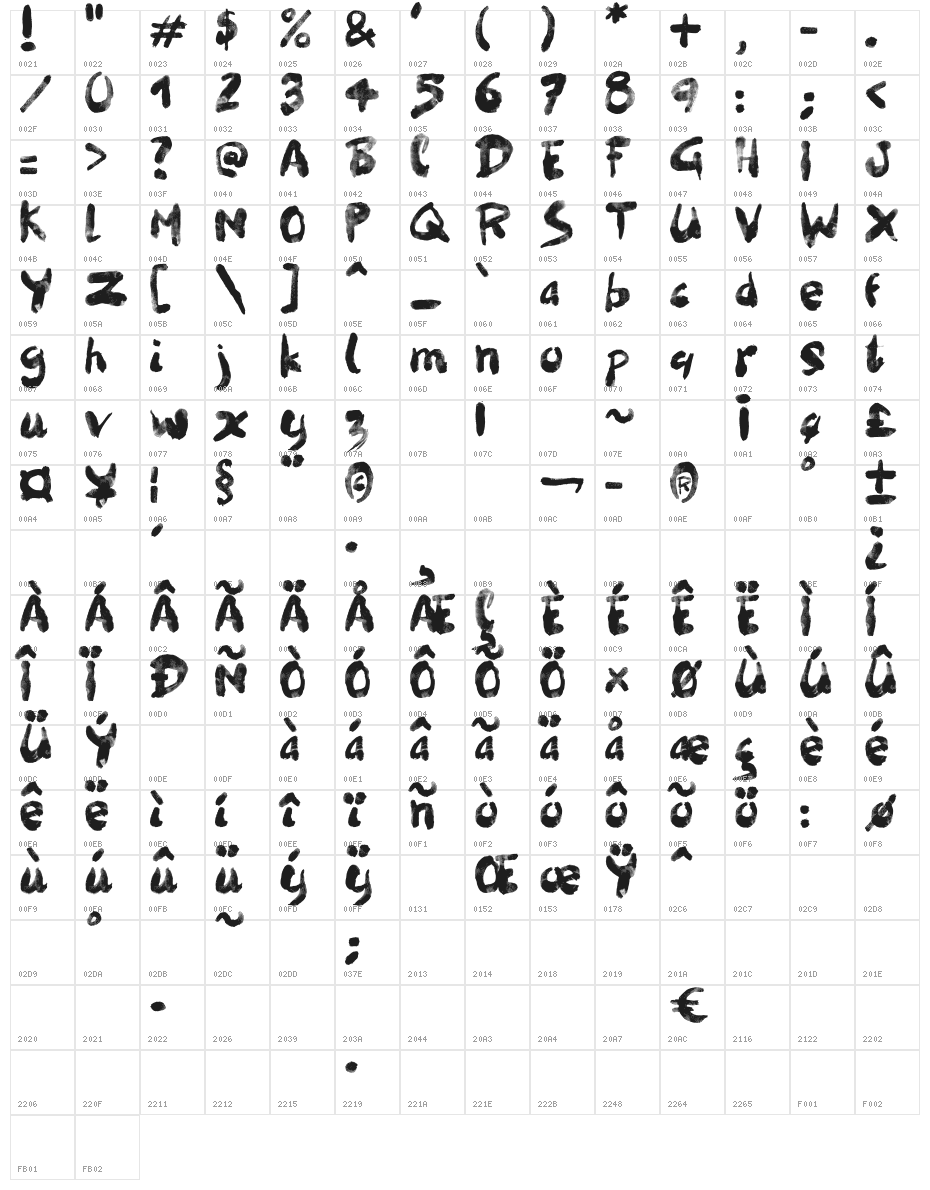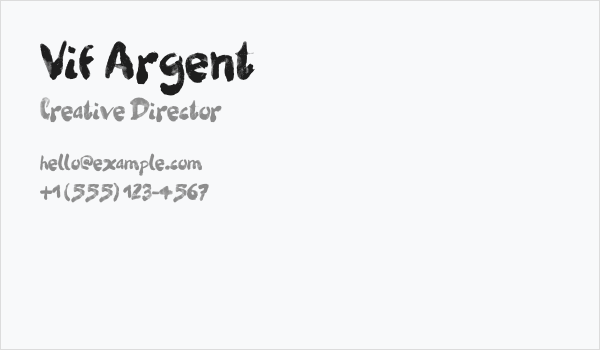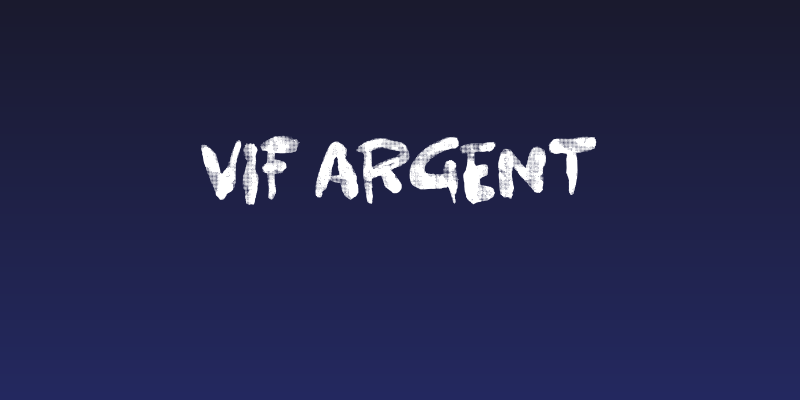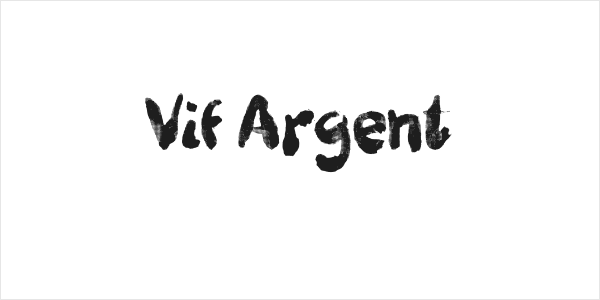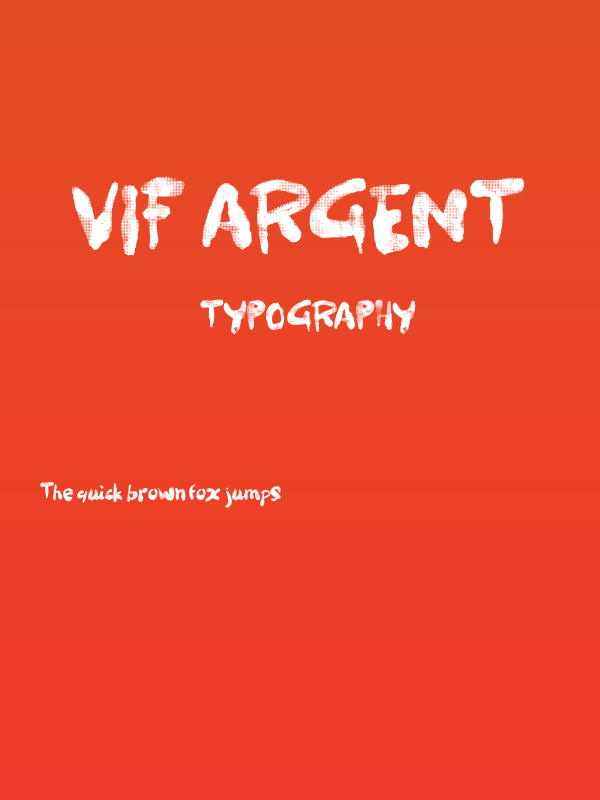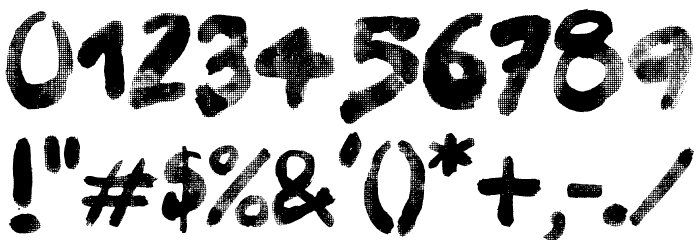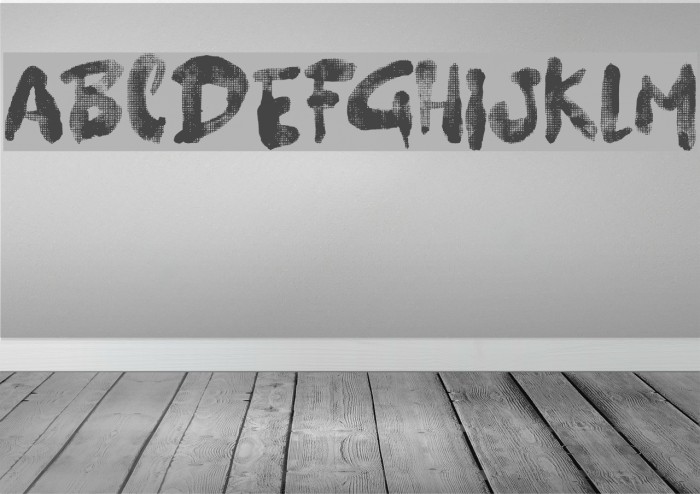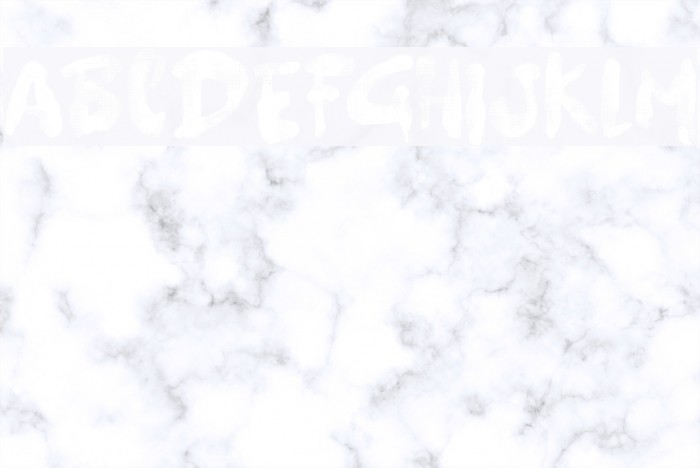
Vif Argent Font
Vif Argent Description
This font exhibits a bold, expressive style with a hand-painted appearance. The characters are uneven and dynamic, giving a sense of movement and energy. The brush-like strokes vary in thickness, creating a textured and artistic look. The uppercase and lowercase letters maintain a consistent style, while the numbers and special characters complement the overall design. This font is ideal for projects that require a creative and informal touch, such as posters, artistic branding, or unique invitations.
| Use Case | Headlines, Logos, Artistic projects |
| Proposed Projects | Ideal for artistic posters, creative branding, unique invitations, and expressive headlines. |